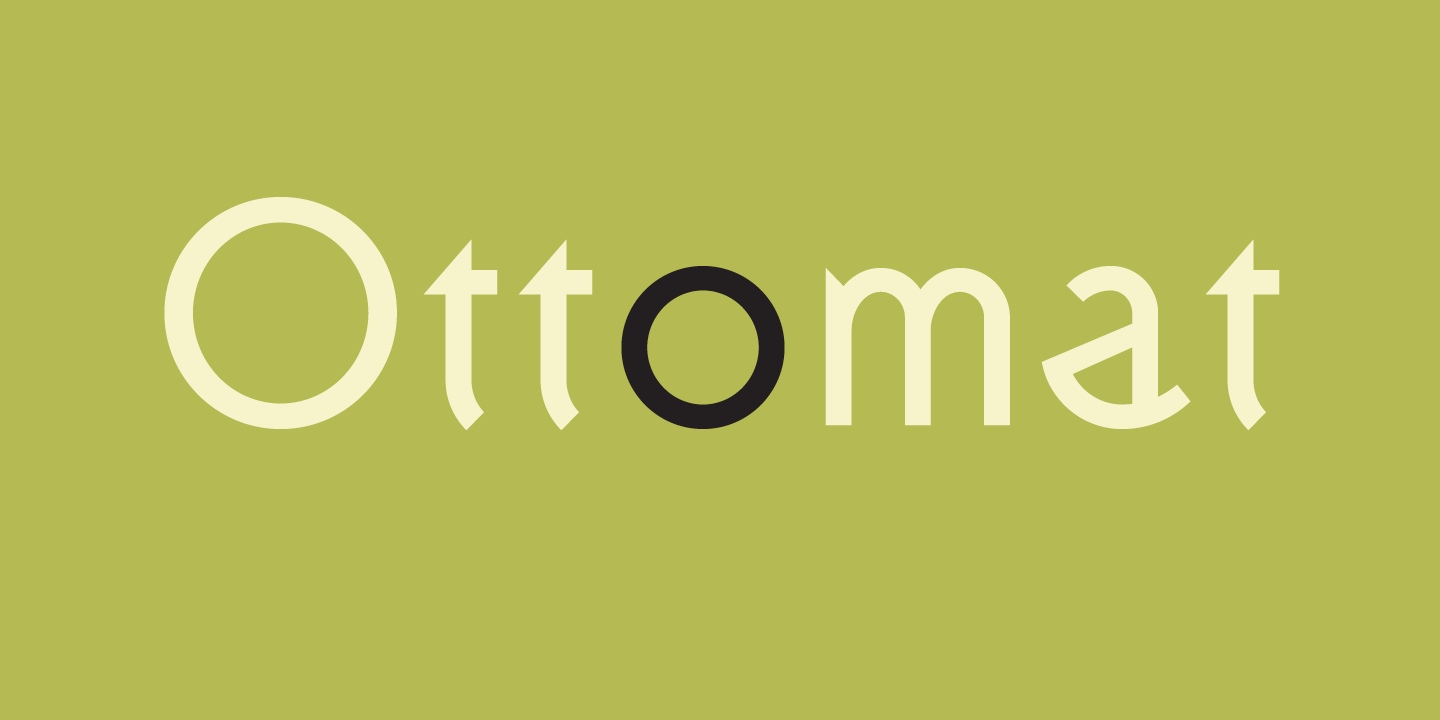
Ottomat Font
Ottomat Font is perfect for tech startup branding, futuristic interface designs, robotic company logos, automation software marketing, industrial manufacturing signage, sci-fi movie titles, gaming applications, and modern architectural presentations. This innovative typeface excels in applications where technological advancement and mechanical precision are essential for creating cutting-edge brand experiences.
What makes Ottomat Font truly exciting is its perfect fusion of mechanical precision and contemporary design innovation. The font features geometric letterforms with clean, angular construction that evokes the efficiency and reliability of automated systems. Its systematic character design and consistent modular approach create a sense of technological sophistication and forward-thinking innovation. The typeface's distinctive personality captures the essence of artificial intelligence and machine learning, making it ideal for brands operating at the intersection of technology and human experience.
The Ottomat Font family includes multiple weights from Light to Black, complemented by condensed and expanded variants that enhance its versatility. The font offers comprehensive OpenType features including tabular figures, technical symbols, and extensive multilingual support designed for global tech applications. Additional stylistic alternates and programmatic elements provide designers with flexible tools for creating cohesive digital brand systems and user interface designs.